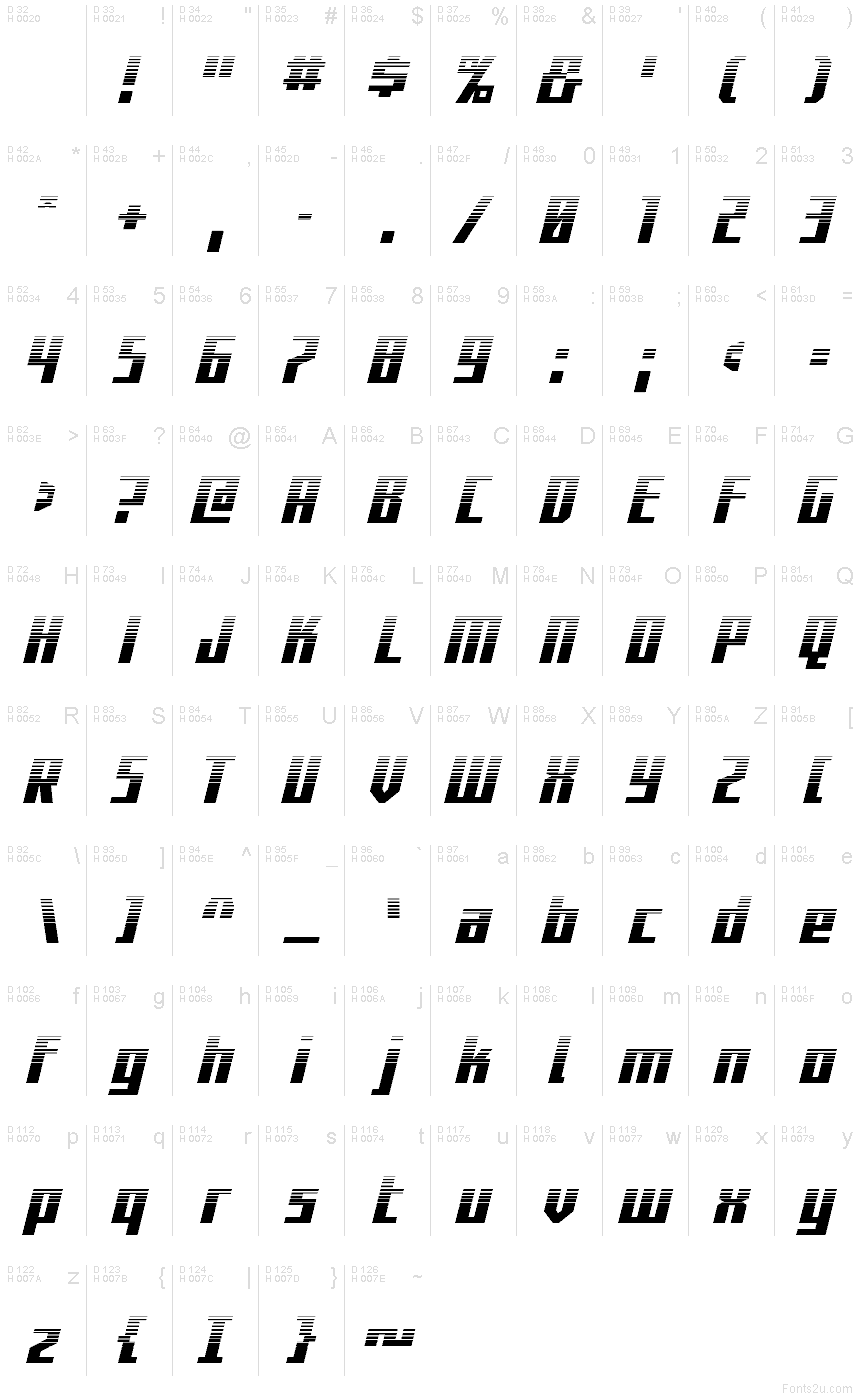
Capitol City Halftone
Capitol City Halftone font by Iconian Fonts is a modern condensed font that features geometric shapes and clean lines. It has a contemporary look, with a futuristic vibe achieved through the use of minimal design and sharp edges. Visual uniformity is maintained across all character which underlines the tech-inspired aesthetic this free display font offers.
Use Capitol City Halftone in logos, headlines, branding designs, posters, brochures, magazines and books covers. Create timeless product packaging and appealing label designs for your product’s marketing campaign. The bold characteristics of the text make the typeface also suitable for use in web designs where creating a visual impact is everything.